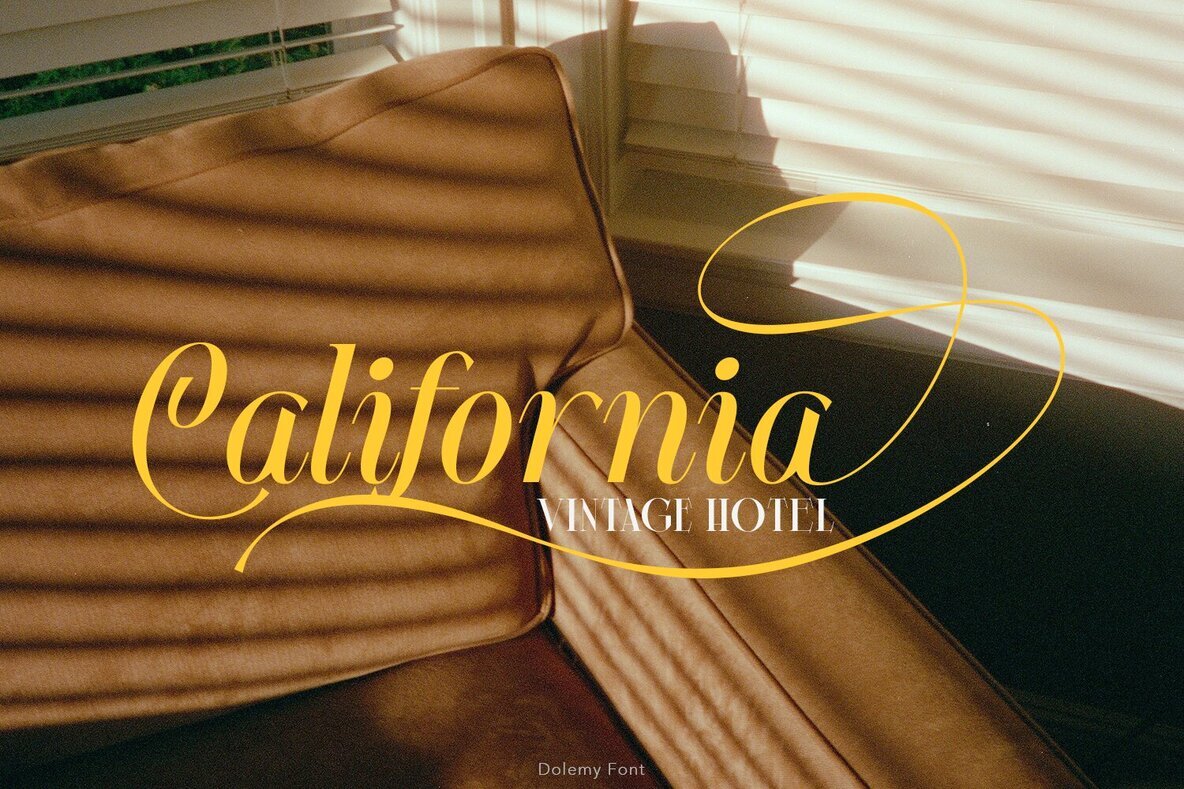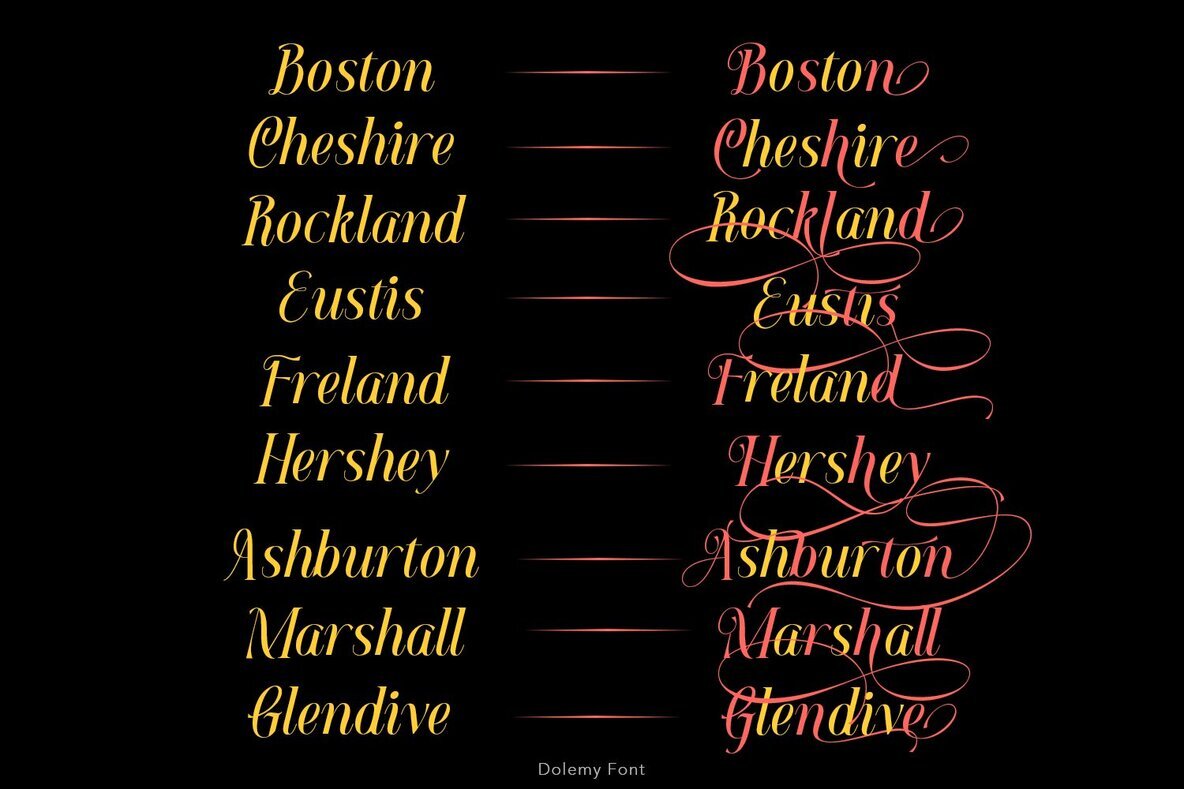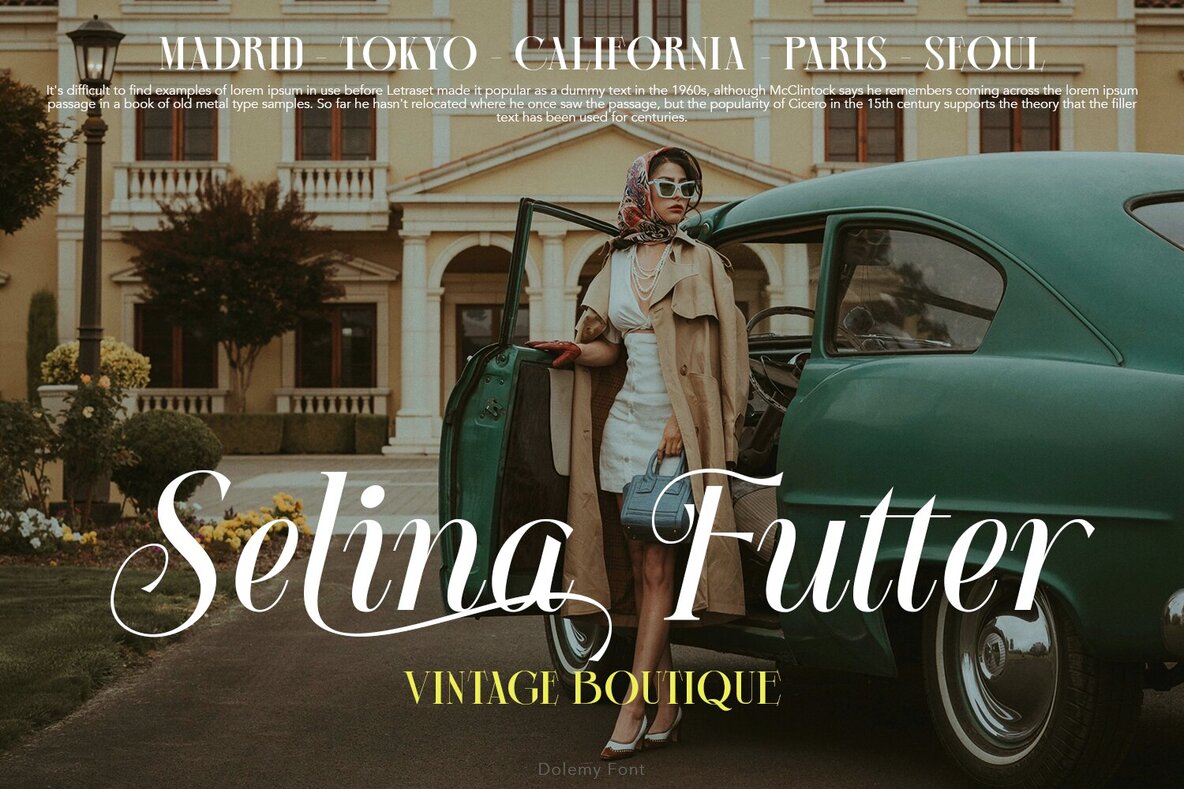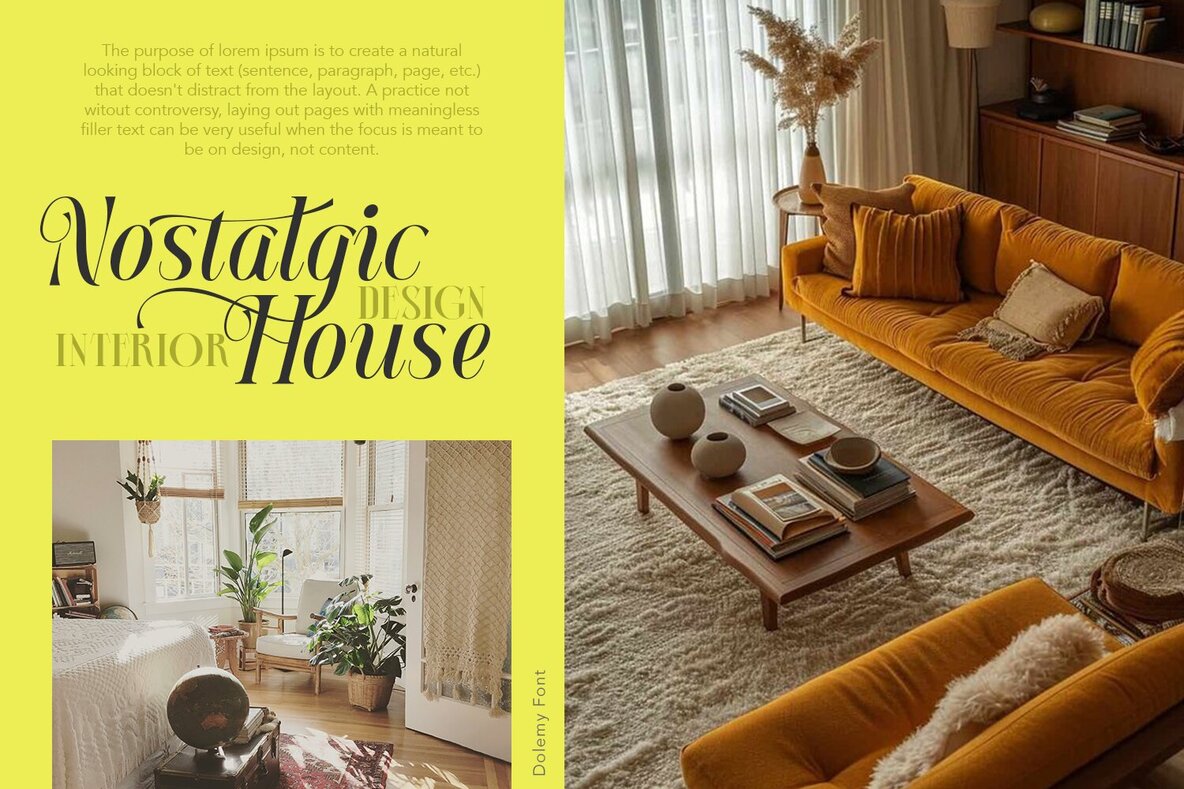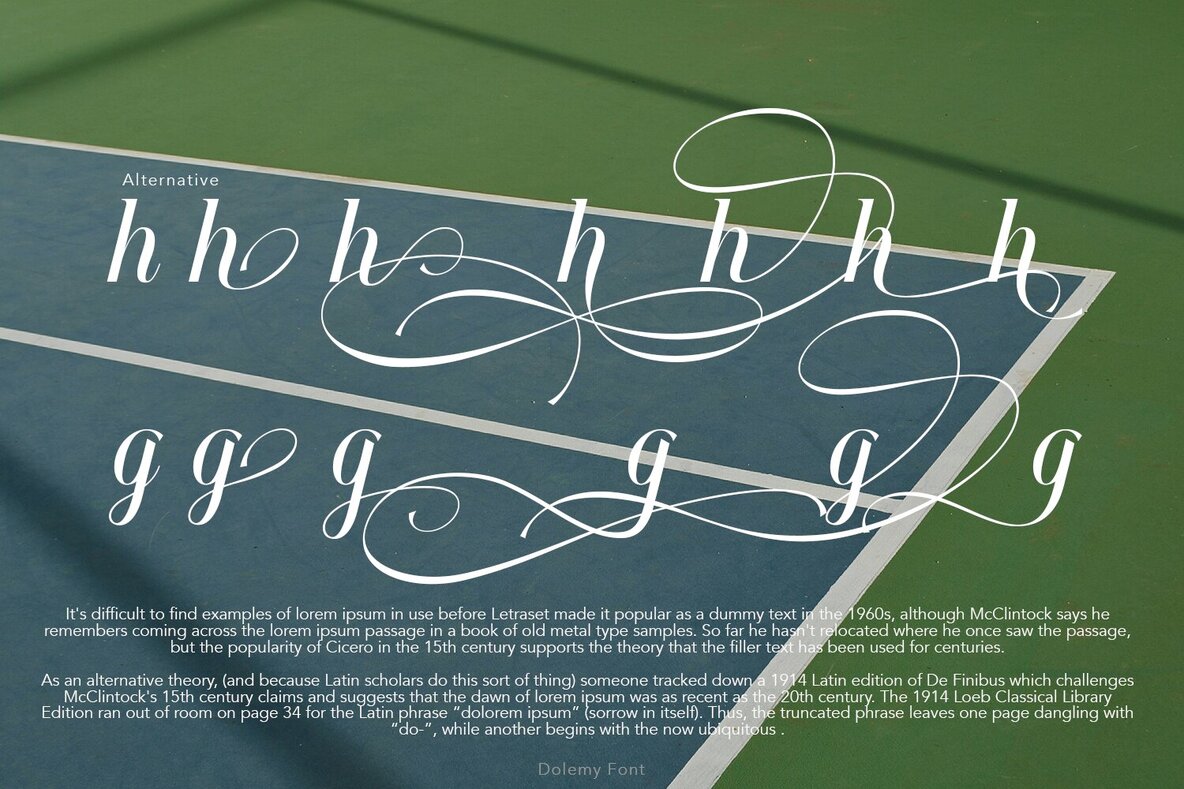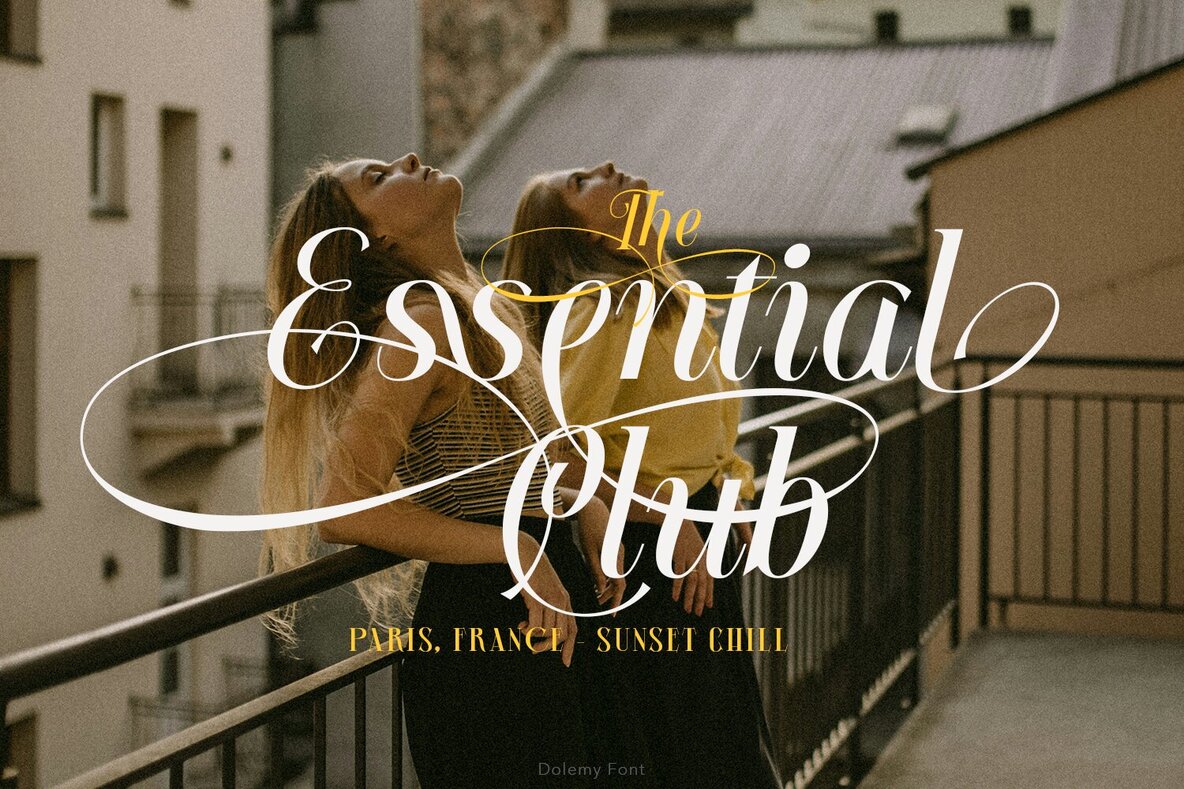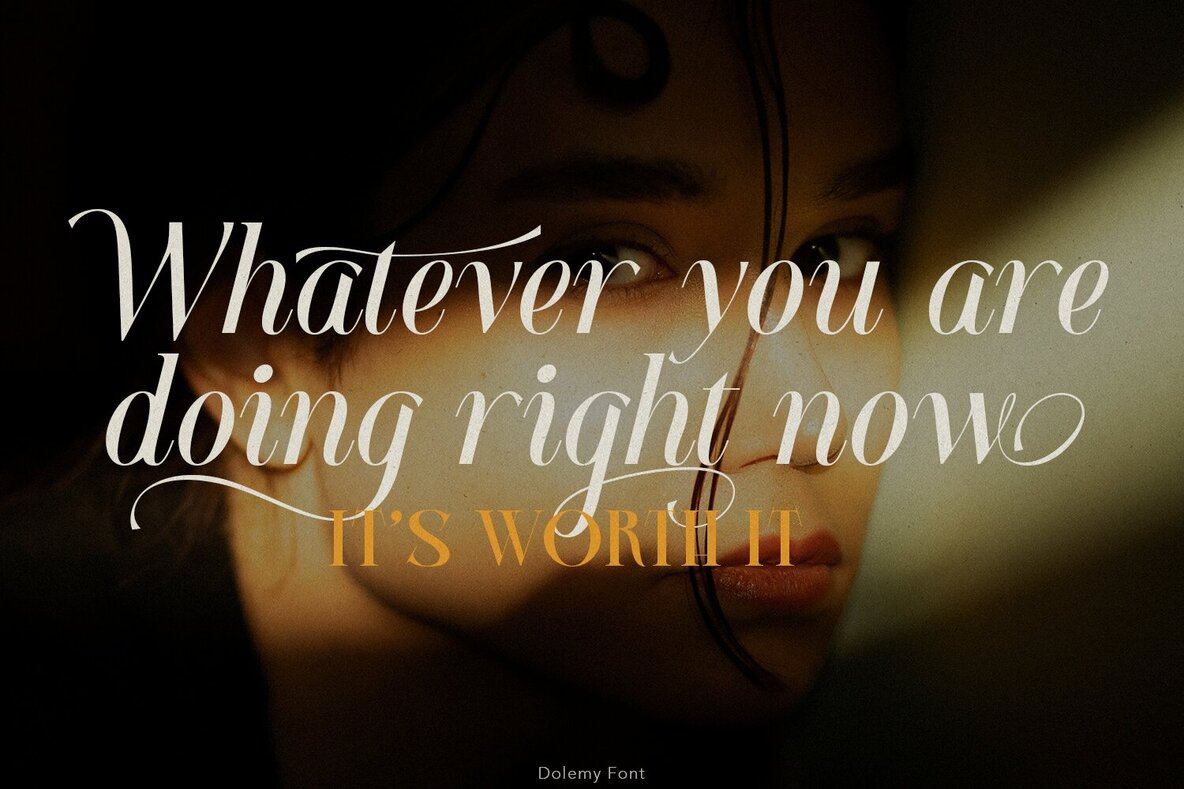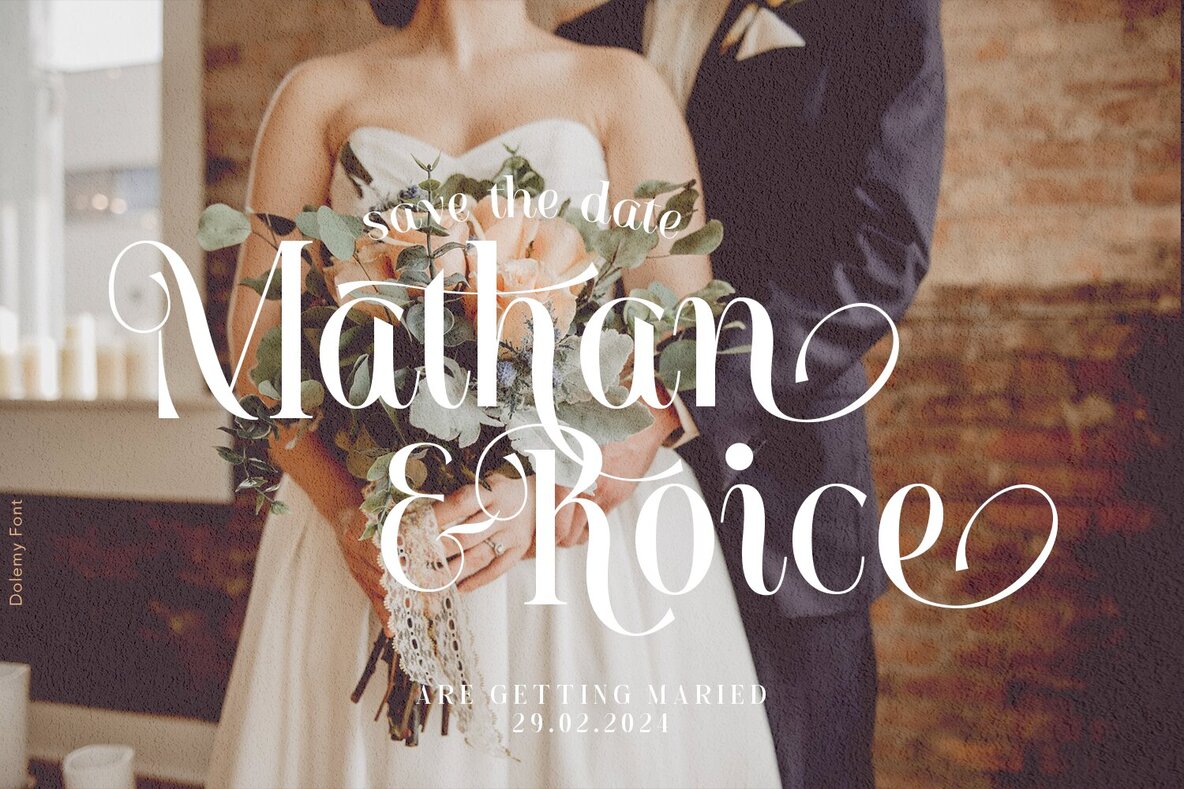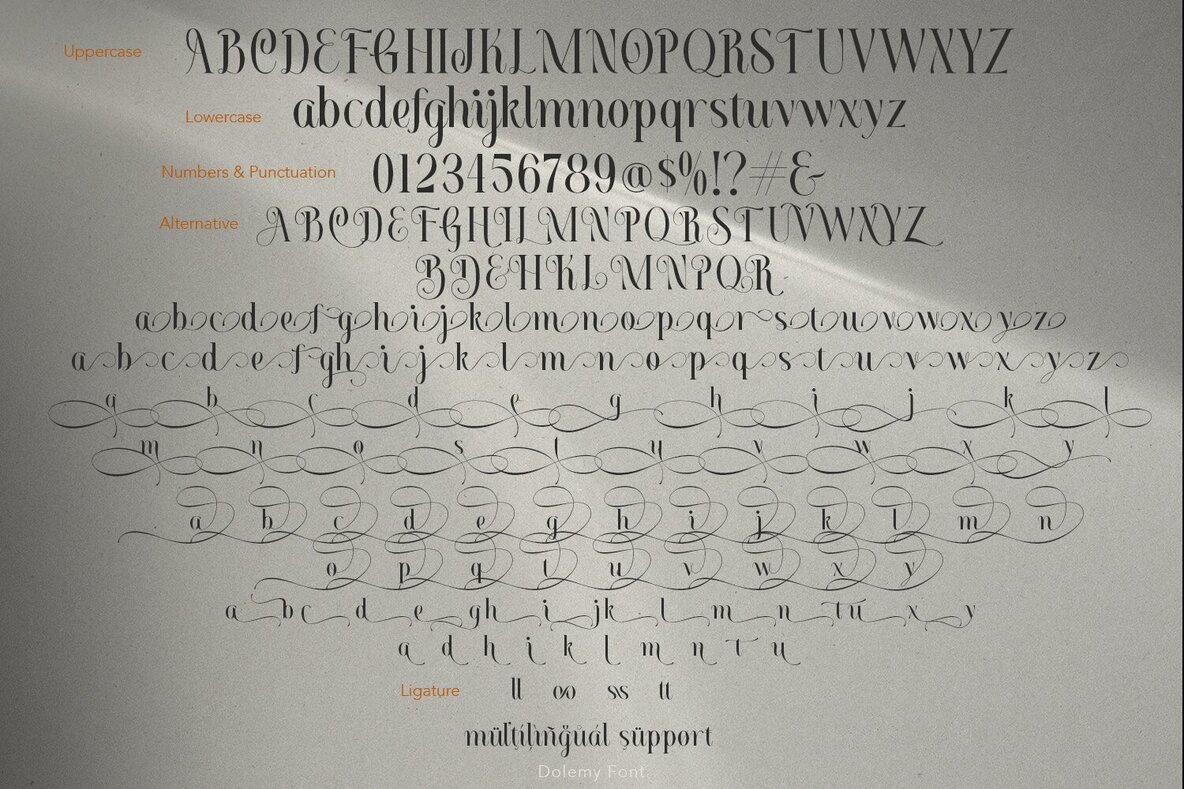
Dolemy Font
Dolemy is a classic-inspired script font that exudes elegance and minimalism. This versatile font, complete with ligatures and special alternative glyphs, offers endless possibilities for creative layouts and compositions. Perfect for adding a touch of luxury to your designs, Dolemy is ideal for logos, websites, social media quotes, wedding branding, and more.
With its refined stylistic features, Dolemy delivers bespoke custom typography to a variety of projects. Whether you're aiming for sophistication or simplicity, this font seamlessly adapts to enhance your creative work. Incorporate Dolemy into your next design project to infuse it with timeless charm and finesse.